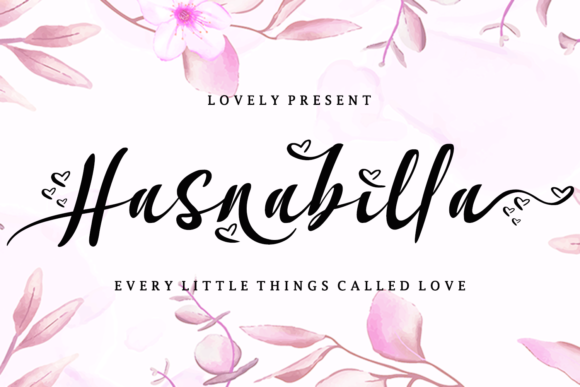
In a world clamoring for authenticity, Hasnabilla Font emerges as a symphony of elegance, whispering charm into your designs. This captivating script font, meticulously crafted by MengulirPena, is an ode to romance, its every curve a stroke of beauty.
Immerse yourself in the allure of Hasnabilla, a font that dances across the page like a love letter penned with passion. Its delicate strokes, reminiscent of a lover's caress, evoke a sense of nostalgia and heartfelt emotion. Whether you're a seasoned designer or a passionate hobbyist, Hasnabilla will elevate your creations, transforming them into expressions of art.
Indulge in the versatility of Hasnabilla, a font that effortlessly adapts to your creative vision. From the delicate intricacies of wedding invitations to the playful charm of social media posts, Hasnabilla dances across any medium with grace. Its PUA encoding grants you effortless access to a treasure trove of glyphs and swashes, allowing you to unleash your creativity without limits.
Experience the magic of Hasnabilla, a font that sparks captivating conversations. Its alternate glyphs and ligatures add a touch of intrigue and uniqueness to your designs, ensuring they stand out from the mundane. Let Hasnabilla take you on a journey of expression, where your words and designs intertwine to create a symphony of visual delight.
With Hasnabilla, your designs transcend mere aesthetics, becoming vessels of emotion and connection. Let its allure captivate your audience, drawing them into a world where beauty and sentiment collide. Embrace Hasnabilla, the font that transforms the ordinary into the extraordinary, turning your creative endeavors into masterpieces that whisper tales of love, joy, and elegance.